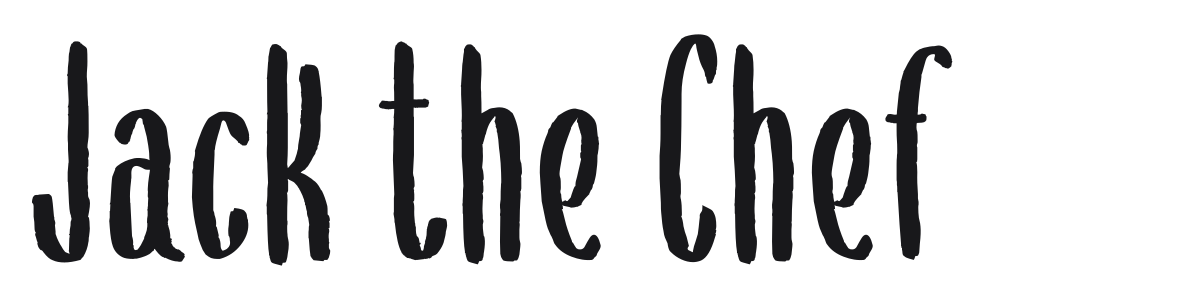
Jack the Chef
Jack the Chef is a condensed hand-lettered serif that packs serious visual punch into a narrow footprint. Its dual personality is part of the design: all caps delivers a bold, assertive headline, while lowercase reads as loose and approachable for subheads or short body copy. Designed by Philip Trautmann for Only Fonts, it has the warmth of a chalk-written menu board with the structure to hold its own in logo work.